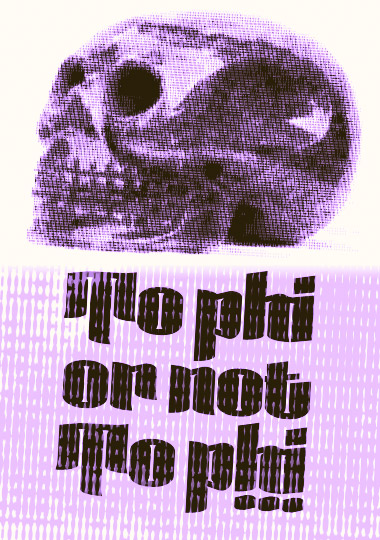
• This font was created around the theme of decay. I took inspiration from shapes and forms within the pieces of a badger's spine and manipulated them to construct the alphabet. Here is my blog :) > http://hollydennis.tumblr.com/ website> www.hollydennisdesign.com
Just incredible ! This defies the medium. We could swear it had been made with a pencil. The forms also are beautiful, unusual an yet evident. Hope you'll find courage to go to the end. This amazing artwork really deserves it !
Amazing font for the first attempt!
Unbelievable... 10/10
AWESOME 10/10
OMG !! It's terrific, fantastic... I hope you'll end it !!
Very cool...I'm looking forward to seeing more.
any tracing used here? if not — i'll take a bow
A highly sensitive work. How funny if the theme was “reflex” instead of “decay”! ;)
As you refine the balance of these pictoglyphs, pay special attention to their relative “gray” values. Right now, A and V read as having both a higher contrast and slightly darker overall appearance.
And when you are finished outlining and shading them bones, I highly recommend your explore the creation of custom composite bricks and brick substitutions to realize different organic shading/etching/half-toning effects. Dots work well enough, but I promise: these variations may be especially useful when designing and printing your specimen book!
10/10 for concept alone!
Will, thank you for your constructive criticism! I am currently modifying the A and the V, but what do you mean by brick substitutions for the shading? could you give an example of a better way of shading?
What a pretty (and what a hard work)!
Williaum is right, as usual. But it still rocks. I give it a 10/10, and I might just download it when it's done.
The start of another exciting/innovative season from UWE ... and what a fantastic design this is. I look forward to seeing the completed work - but it's still well worth 10/10 already.
You may now proceed to the head of the class. :-)
@hollydennis: Lovely completion! Unexpected rl exigencies have kept me from answering your question, though I have been working on creating a palette of custom bricks to share. I will try to be in touch with some examples in the next week or so...sorry in advance if that stretches beyond your school obligations.
@holly: here’s my first example of a halftone scheme that will print nicely. Luckily, your letters are far fewer bricks in height. So if you attempt to use my custom bricks to shade your glyphs they should still download.
Unfortunately, the best effect requires using 2:2 filters. This way, the halftone bricks overlap partially and perfectly and thus quadruple the apparent resolution of the image by creating intermediate tones. You will have to “grid-double” each of your glyphs (space each row and column out with an 1-brick buffer) in 1:1 and then apply the 2:2 filters to achieve this result. Good luck!
p.s. this is just one of many possible halftoning arrays. I will try to publish some more and will update you as they are ready.
Amazing typeface!
Blogged! My sample took a while to set — Illustrator nearly choked on the font. 2.4MB!
I'm using it in a poster that i'm making to put on my potfolio :D Unfortunately, when downloaded the smallest dots turn into squares. Hope Fontstruct fix it.
@ Ramongap. Please mention it to Rob Meek. Although he is well aware of the problem since 2009. I am sure it is on his list, but obviously it's a mathematical problem that he has been aiming to resolve for some time.
It is stopping me publishing and using several of my own fonts for the same reason. The smaller the dot - the more distorted it becomes.
it's not working… there's a handful of letters missing and i have no clue how to use it now :(((
I dont have the courage to even start doing soething with THAT much detail, but that finished product is so good, hope you keep going